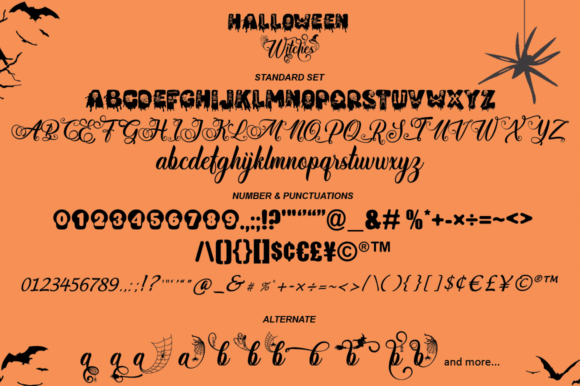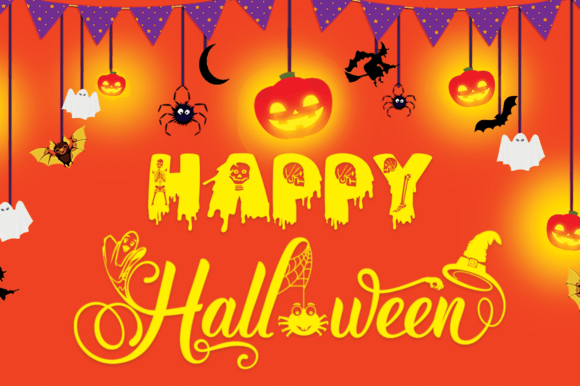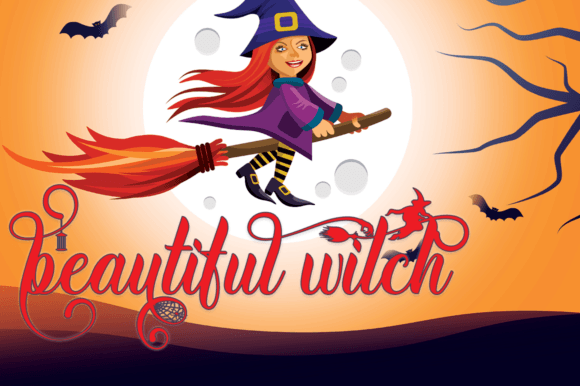
Introduction to Halloween Witches Duo Font
Halloween Witches is a fun duo font (display and script) with a scary and cute Halloween theme.
Masterfully designed to become a true favorite, this font has the potential to bring each of your creative ideas to the highest level Fall in love with its incredibly distinct and timeless style, and use it to create spectacular designs.
Halloween Witches Duo Font offers exceptional quality and versatility, making it a valuable addition to your design toolkit. Whether you’re creating for personal projects or commercial use, Halloween Witches Duo Font delivers professional results.